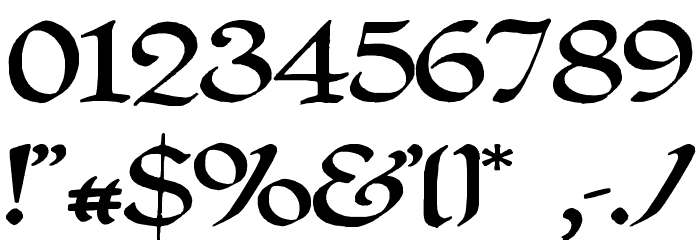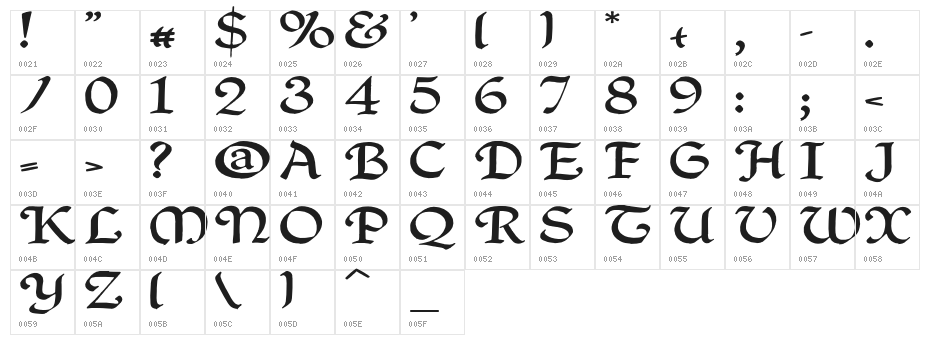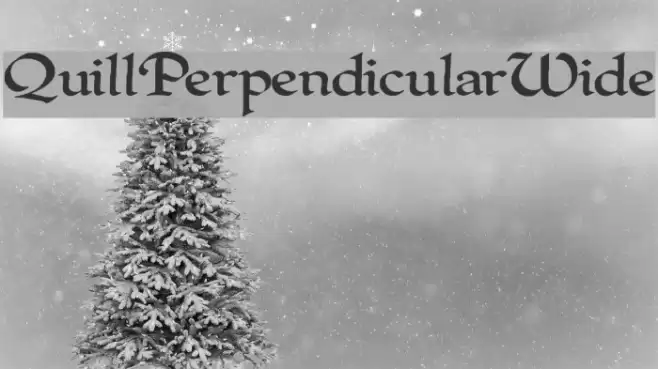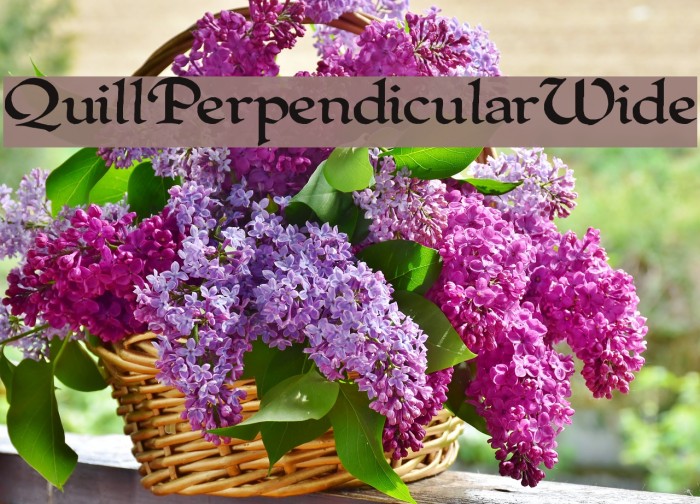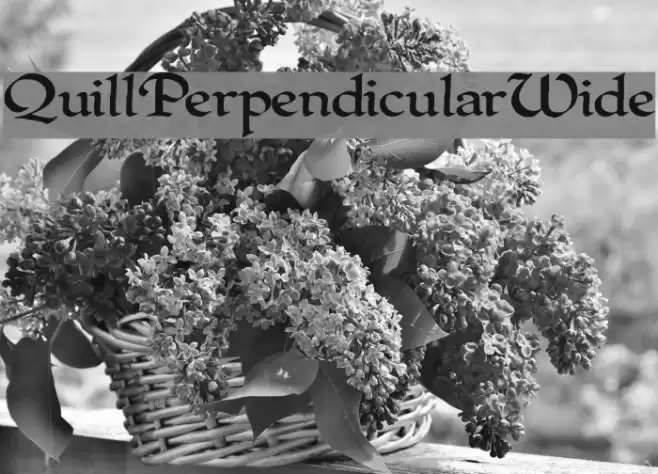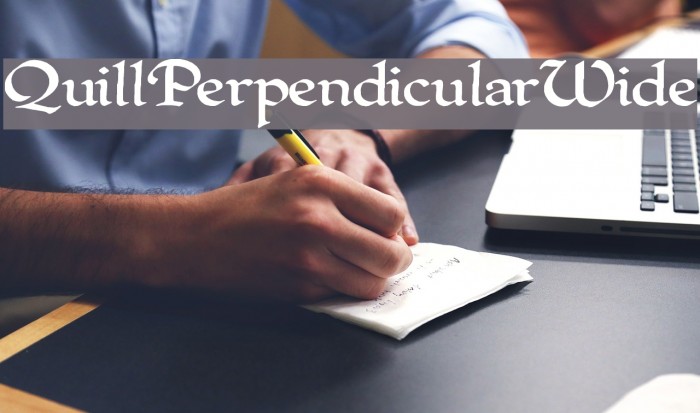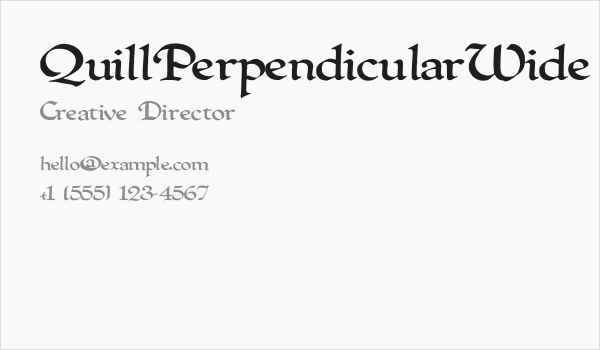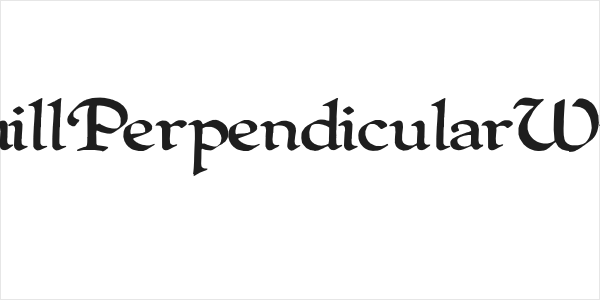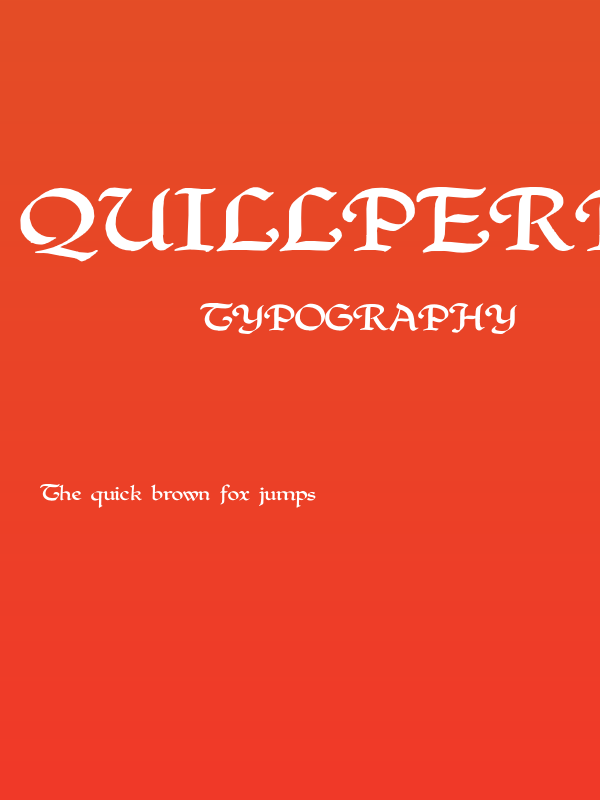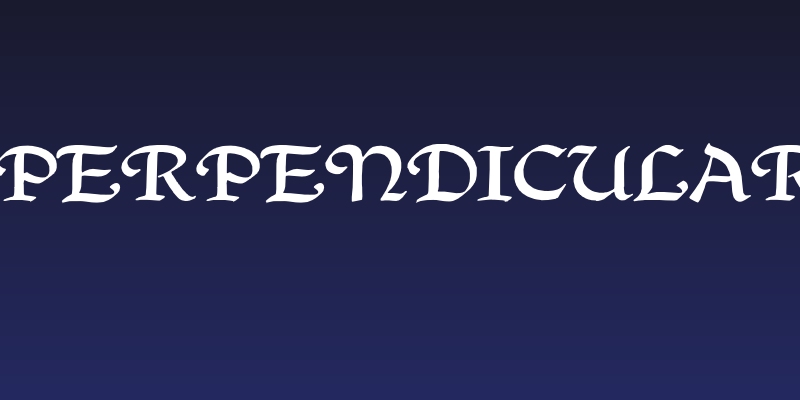
QuillPerpendicularWide Font
QuillPerpendicularWide Description
This font features a distinct calligraphic style with a strong medieval influence. The characters exhibit a unique blend of sharp angles and smooth curves, creating an elegant yet bold appearance. The uppercase letters are particularly ornate, with intricate serifs and a slightly condensed form. The lowercase letters maintain a consistent flow, enhancing readability while preserving the decorative nature. The numerals are well-balanced, matching the overall aesthetic. Special characters are crafted with the same attention to detail, making them suitable for a variety of design contexts.